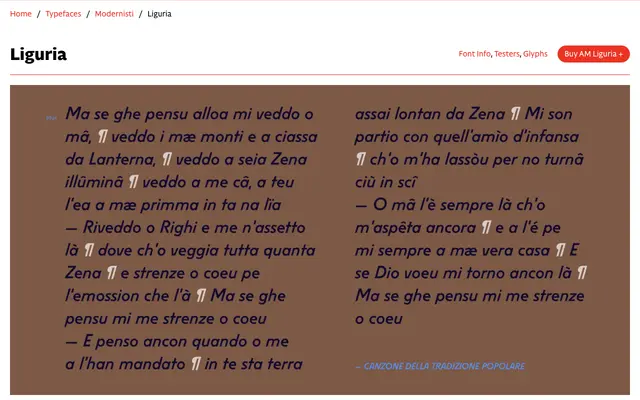
AM Liguria
CAST · Beatrice D'Agostino · 2024
A digital revival of a 1938 Italian wood type, cut by the Xilografia Verona and faithfully redrawn by Beatrice D'Agostino with refined counters and consistent terminals.
Originally available in five sizes as a wood type, Liguria is a slanted monolinear sans with classical capital proportions, narrow B, E and S alongside a wide O. Its defining feature is the flat base and top of diagonal letters such as A, V and W, a practical device that reduces the need for kerning. D'Agostino's revival adjusts proportions and contrast to preserve the original's rough, spontaneous quality while reworking the punctuation entirely.
A digital revival of a 1938 Italian wood type, the face is monolinear, slanted throughout and evocative of German geometric sans-serifs of the 1920s. Its exclusively italic posture and wood-type origins place it firmly in the display category despite its sans-serif structure.